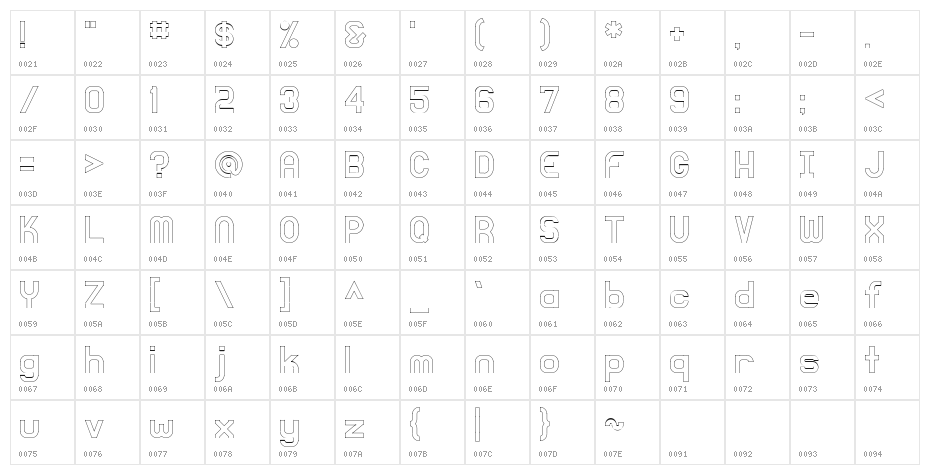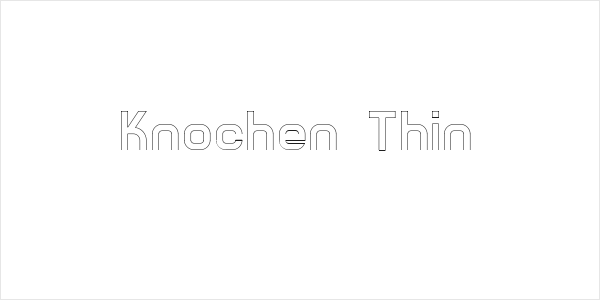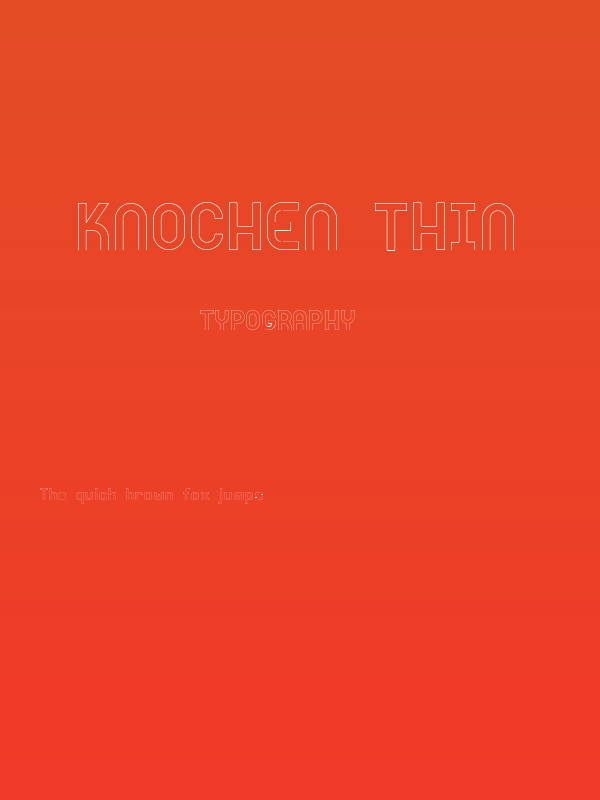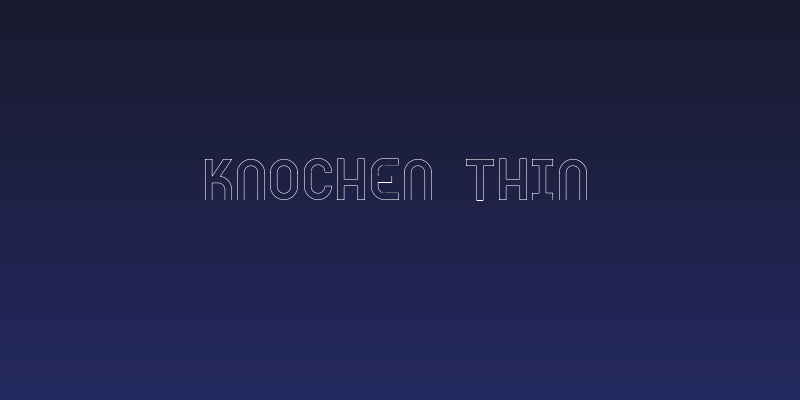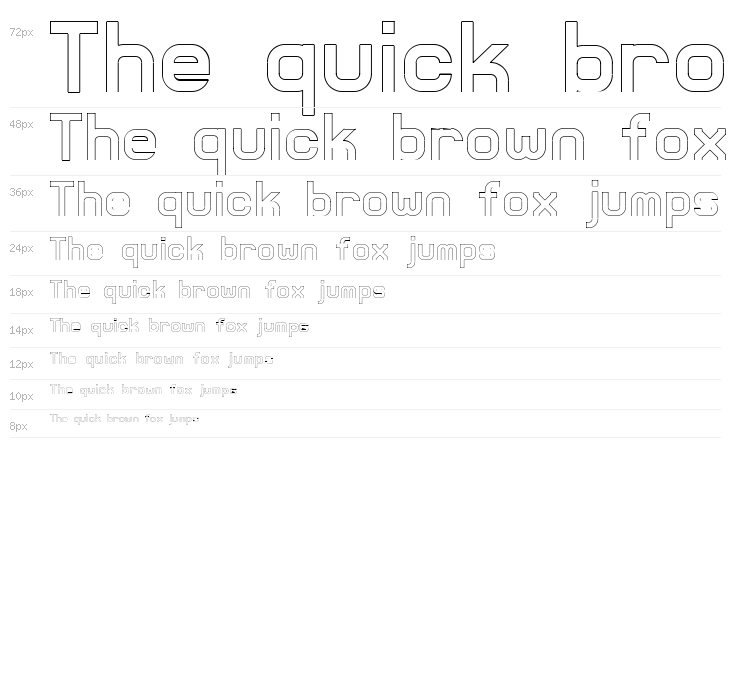
Knochen Thin Font
Knochen Thin Description
This font features a geometric and modern design with a thin, outlined structure. The characters are uniform in width, creating a cohesive and clean appearance. The uppercase and lowercase letters maintain a consistent style, with rounded edges and a minimalistic approach. The numerals and special characters follow the same design principles, ensuring a harmonious look across all elements. This font's simplicity and clarity make it versatile for various design applications.
| Use Case | Headlines, Logos, Digital interfaces |
| Proposed Projects | Ideal for modern branding, digital interfaces, posters, and minimalist design projects. |